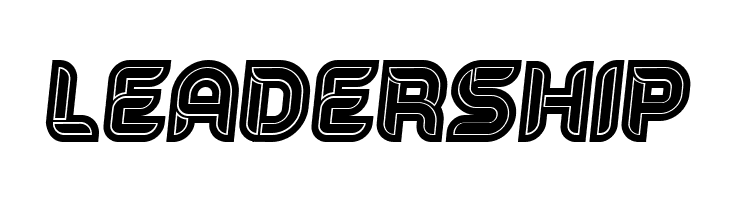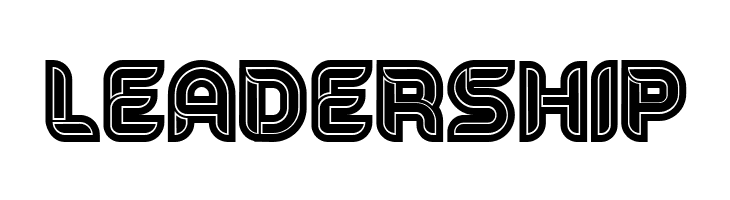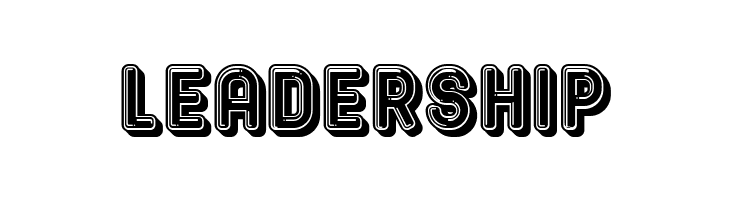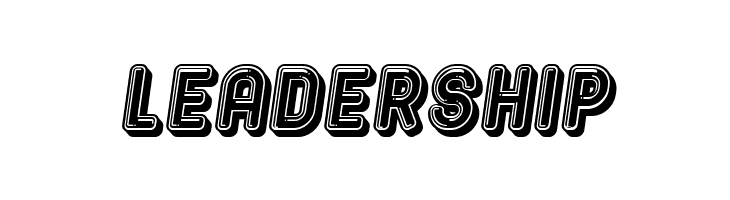
• Spectral ExtraBold
A bold, high-contrast serif typeface with a modern yet classic appeal.
• Spectral ExtraBold Italic
A sophisticated extra bold italic serif font with high contrast strokes.
• Spectral ExtraLight
A refined serif font with thin strokes and high contrast, exuding elegance.
• Spectral ExtraLight Italic
An elegant, extra-light italic serif font with high contrast and graceful slant.
• Spectral Italic
An elegant italic serif font with smooth curves and a classic style.
• Spectral Light
A classic serif font with elegant, thin strokes and high contrast.
• Spectral Light Italic
A refined, light, and elegant italic serif font with smooth curves and sharp serifs.
• Spectral Medium
A modern serif font with elegant, well-proportioned letterforms and clear numerals.
• Spectral Medium Italic
An elegant serif font with medium weight and italic style, offering a classic and sophisticated look.
• Spectral Regular
A modern serif font with elegant, refined letterforms and medium contrast.
• Spectral SemiBold
A modern serif font with semi-bold weight and sharp serifs.
• Spectral SemiBold Italic
A semi-bold italic serif font with a refined and elegant style.
• Speed Italic
A bold, italic font with a retro-futuristic, outlined style.
• Speed Regular
A bold, geometric font with a three-dimensional, retro-futuristic style.
• Spittoon taxidermist jr.
A whimsical and decorative font with playful, exaggerated letterforms.
• Splendid Plan 9 Italic
A bold, italic font with a modern and dynamic style.
• Splendid Plan 9 Regular
A bold, modern sans-serif font with geometric structure and uniform width.
• SpookShow Undead
• Spyced
• Surf Punx Italic
• Surf Punx Light
• SwedieCruel